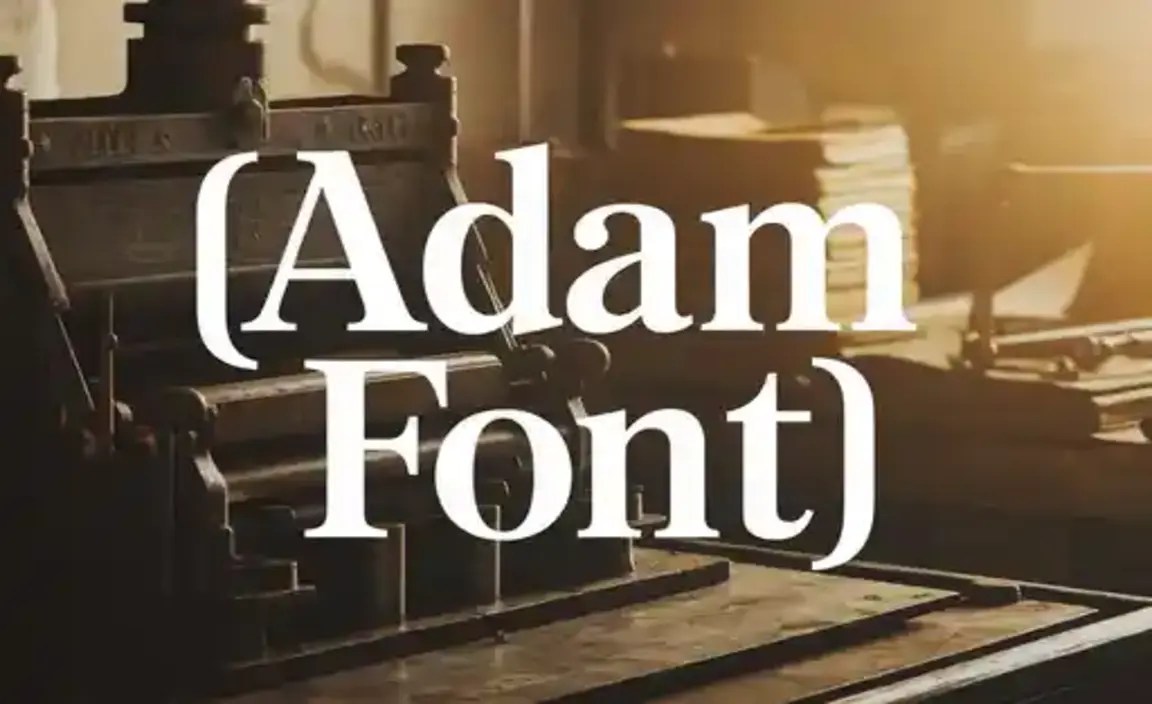
Adam Font, designed by Adam Ericsson (or Adam Nördling), is a versatile serif font that strikes the perfect balance between modern and vintage aesthetics. It belongs to the rounded font family and offers a distinctive appeal for designers working on printed materials, posters, and digital website projects.
Adam Font Overview
The font’s soft curves and elegant details convey a friendly and professional tone. Adam Font works well for branding, decorative fonts, and even 3D fonts, making it suitable for a variety of projects.
| Style | Serif, Rounded Font |
| Designer | Adam Nördling/ Ericsson |
| Type | Display Typeface |
Adam Font Family Includes
Adam Font comes in 1 style, ensuring a cohesive yet distinctive look. While its rounded edges classify it as a rounded font, its design includes influences from modern fonts, calligraphy fonts, and even retro fonts.
- Adam Reguler
While Adam Font leans toward modern serif fonts, its unique rounded font design sets it apart from popular alternatives like slab serif fonts and blackletter fonts. Its soft handwritten fonts influence adds warmth, unlike the stark precision of most techno fonts or pixel fonts.
Adam Font Key Features
- Distinct Rounded Serif Design
- Single-Style Simplicity
- Versatility in Application
- Comprehensive Character Map
- Blend of Styles
- Adaptability Across Design Genres
- Friendly and Professional Mood
- Minimalistic Yet Impactful
- Multi-Industry Usability
Where Adam Font Use
- Branding and Logos
- Digital Applications
- Printed Materials
- Social Media and Advertising
- Creative and Artistic Projects
- Educational and Informational Materials
- Merchandise and Packaging
- Themed Design Projects
- Multi-Language Typography
- Experimental and Custom Typography
Pros And Cons
Pros
- Rounded edges add uniqueness to designs.
- Versatile across posters, websites, and branding.
- Simple yet impactful decorative font style.
Cons
- Limited to 1 style; lacks variety in weights.
- Not as detailed as dingbats fonts or graffiti fonts.
Facts About Adam Font
- Inspired by modern fonts with a hint of retro fonts.
- Works well with foreign fonts for multi-language projects.
- Influenced by both calligraphy fonts and typewriter fonts.
- Versatile enough for 3D fonts applications.
- A favorite in gothic fonts inspired logos.
Adam Font Character Map:
1.What Type Of Font Is Adam Font?
Adam Font is a rounded serif font that blends the elegance of traditional serif fonts with a soft, approachable touch. Its rounded edges give it a unique personality, making it suitable for projects that aim to be both professional and inviting.
2.Who Designed Adam Font?
Adam Font was designed by Adam Ericsson, a talented type designer known for creating typefaces that balance functionality with artistic expression. This font reflects his expertise in crafting designs that cater to both aesthetic appeal and practical usage.
3.How Many Styles Does It Include?
Adam Font includes a single style, making it a straightforward choice for designs that require simplicity and consistency. Its single-style approach ensures a focused and cohesive look across various applications.
4.Is It Suitable For Websites?
Yes, Adam Font is an excellent choice for websites. Its clear and readable design ensures a smooth user experience, while its rounded serifs add a touch of character to digital interfaces, making it ideal for blogs, landing pages, or e-commerce sites.
7.What Are Some Similar Fonts?
If you’re looking for alternatives to Adam Font, consider exploring sans-serif fonts, typewriter-style fonts, or fonts with curly, rounded features. These options share similar characteristics and can be used to achieve a comparable look and feel.
9.Does It Support Multiple Languages?
Yes, Adam Font includes support for multiple language characters, making it suitable for international projects. Its multilingual compatibility ensures designers can use it effectively across different scripts and linguistic contexts.
10.Where Can I Use It?
Adam Font is perfect for posters, branding, and printed materials. Its unique professionalism and approachability make it well-suited for marketing campaigns, business logos, editorial layouts, and promotional content.